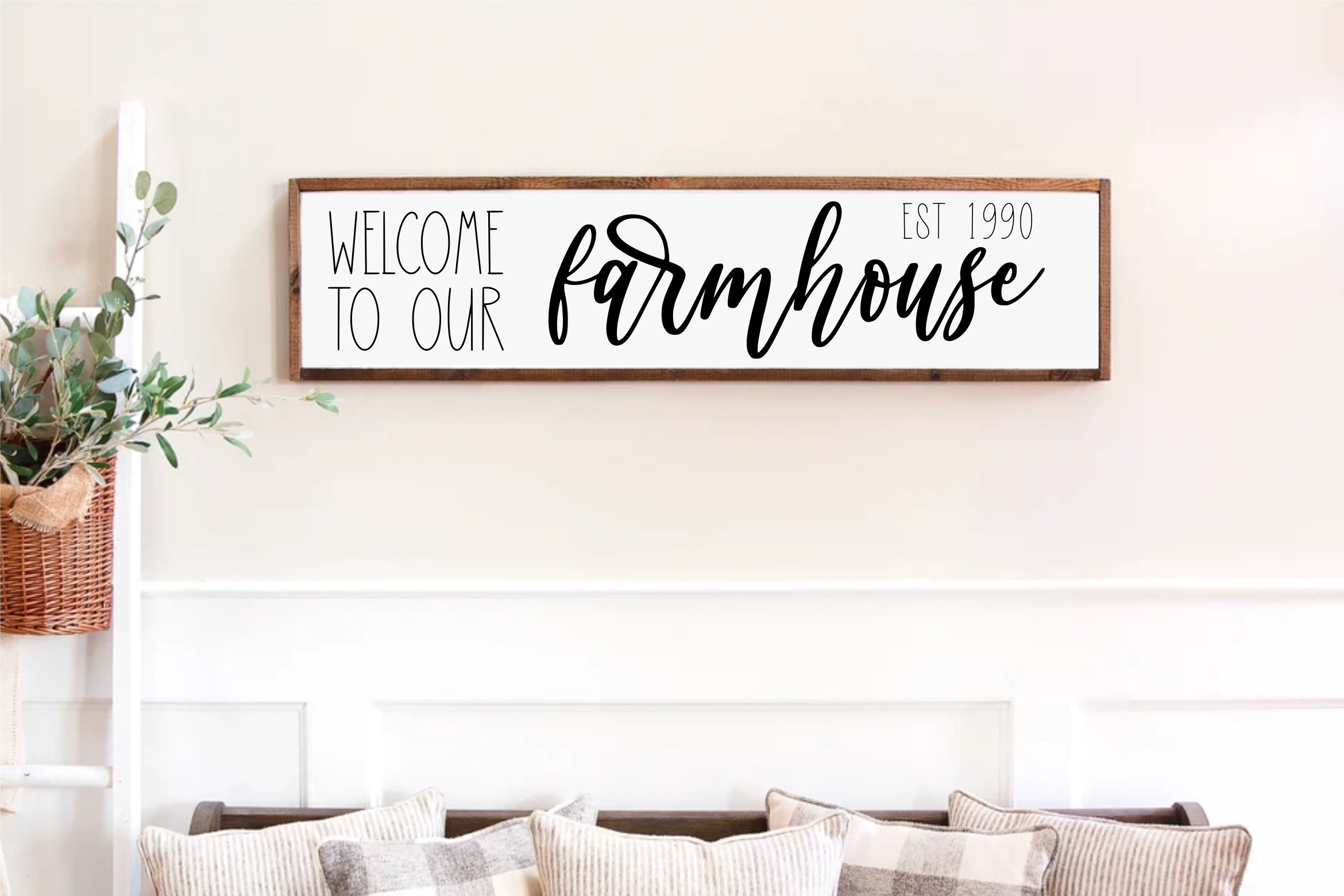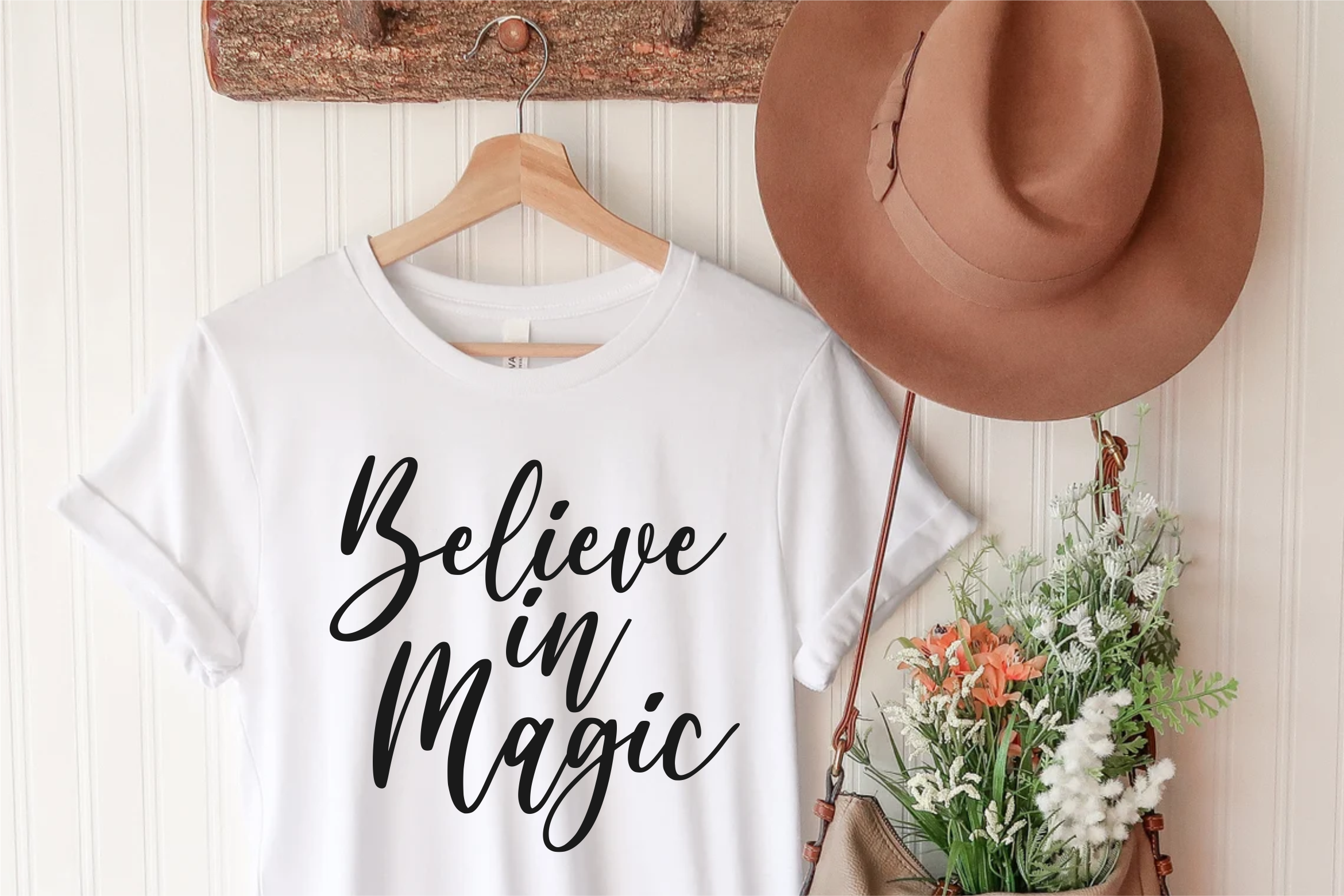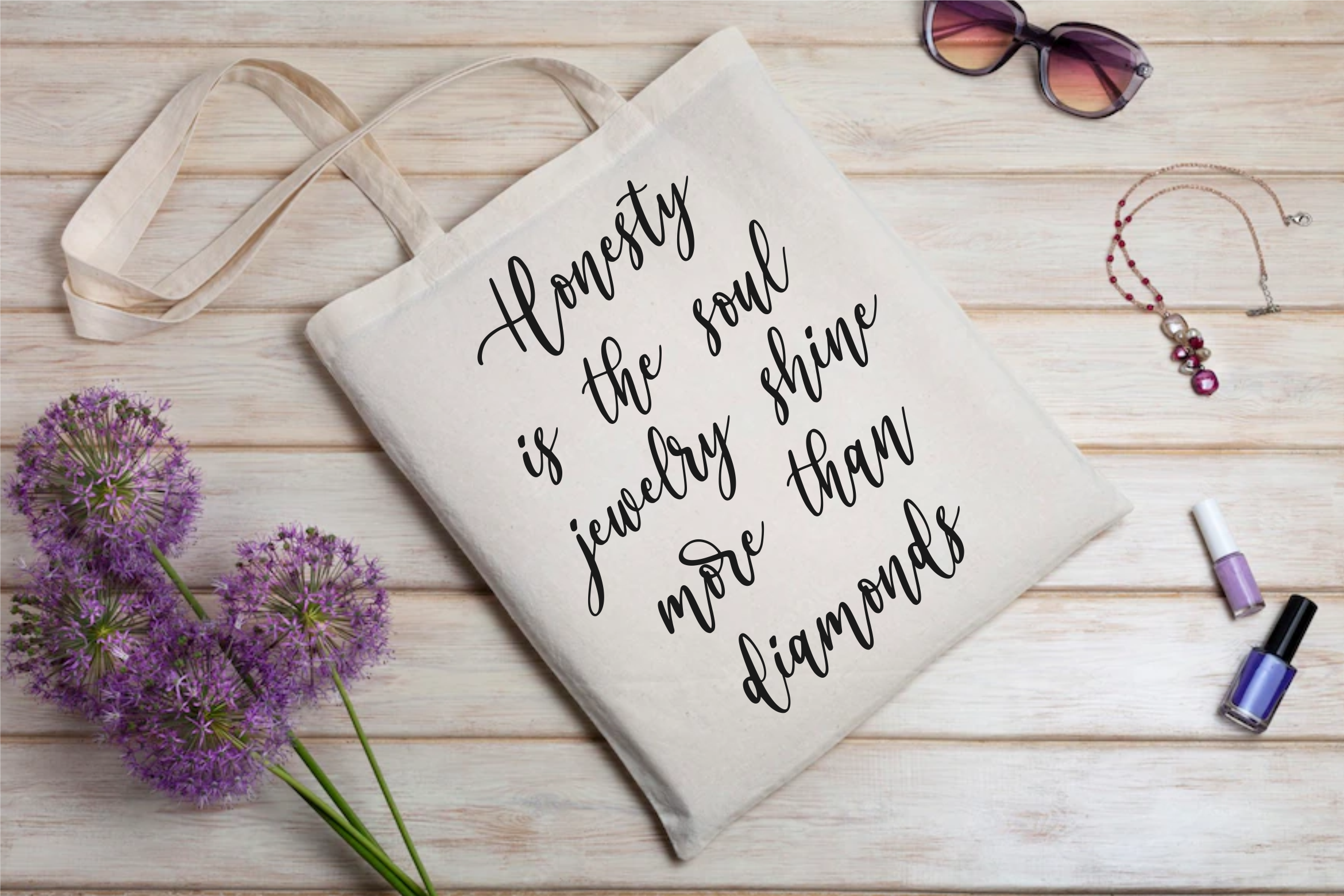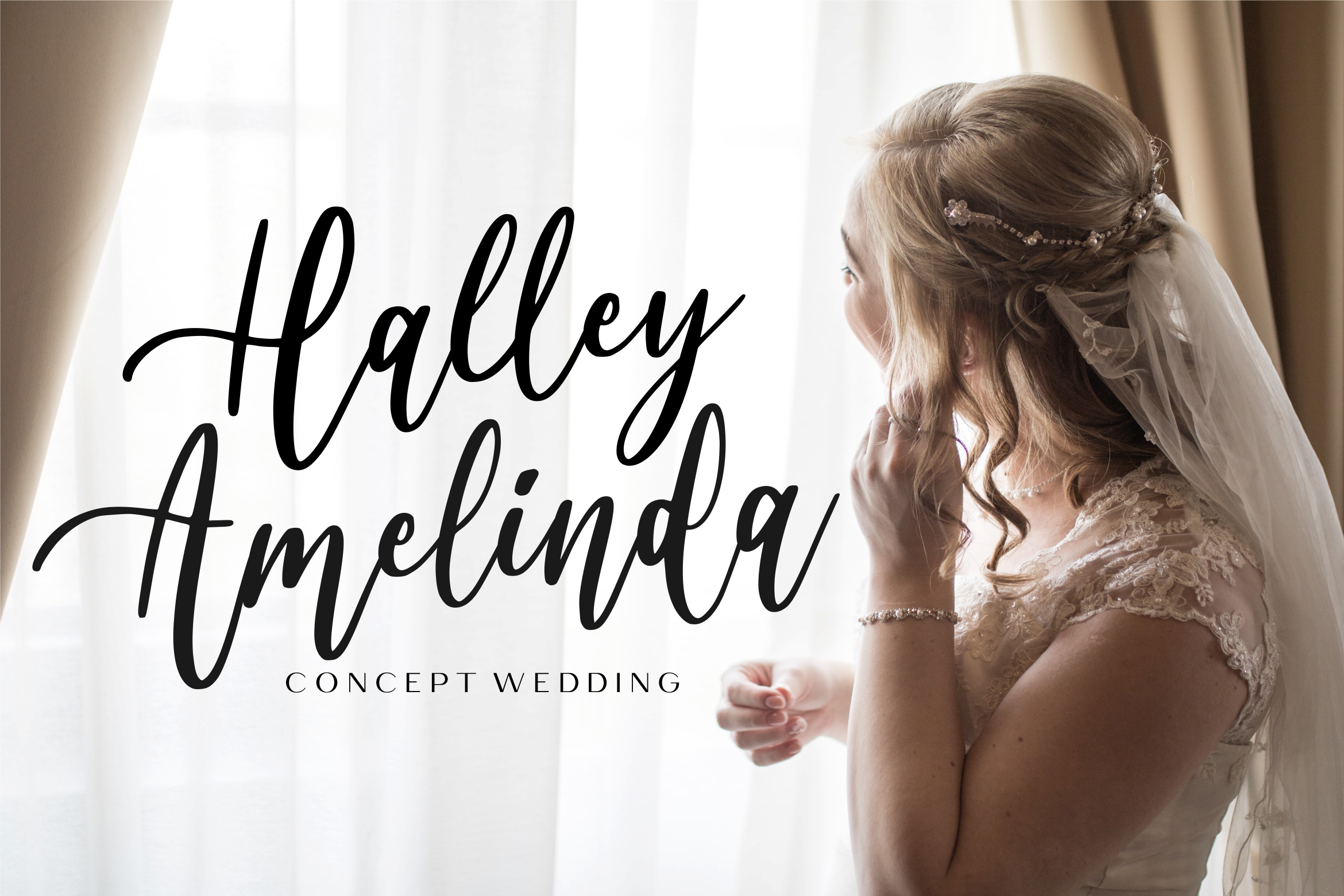
Miramilly Font
Miramilly Script Font
It’s a Modern Calligraphy Font. Miramilly is perfect for product packaging, branding project, megazine, social media, wedding, or just used to express words above the background.